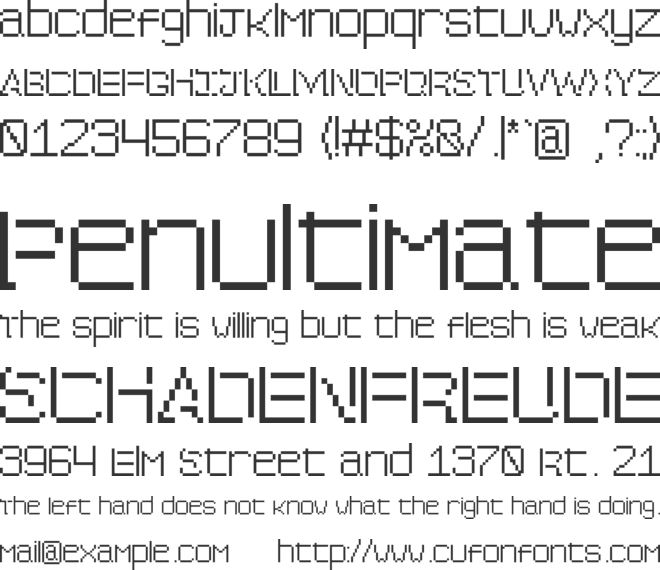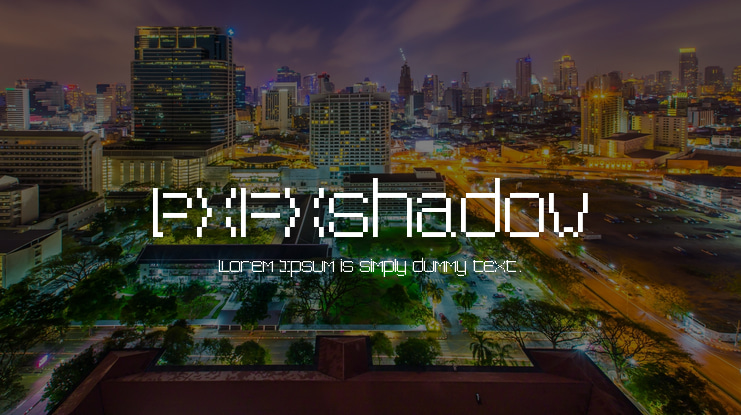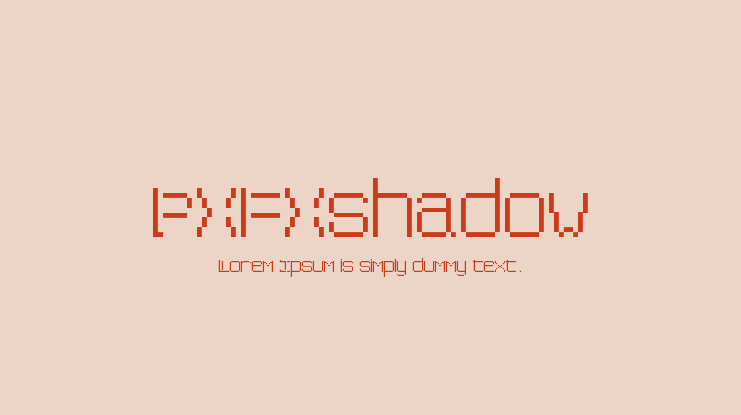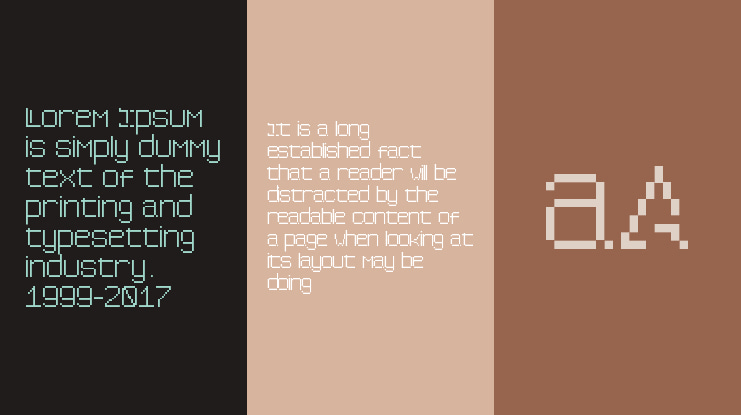
PXFXshadow Font
A bitmap font where the capitals are in a drop shadow effect, perfect for a black background.
I created this font for myself a few months ago when I never managed to find a bitmap drop shadow style font for myself.
This font was updated!
A lot of letters look more "lettery" and the are better drop shadows on some letters, primarily the U, Y, and the G.
The issue with the line on the lowercase T not being aligned with the rest of the letters caught me off guard so I fixed it.
The issue with the brackets has also been sorted.